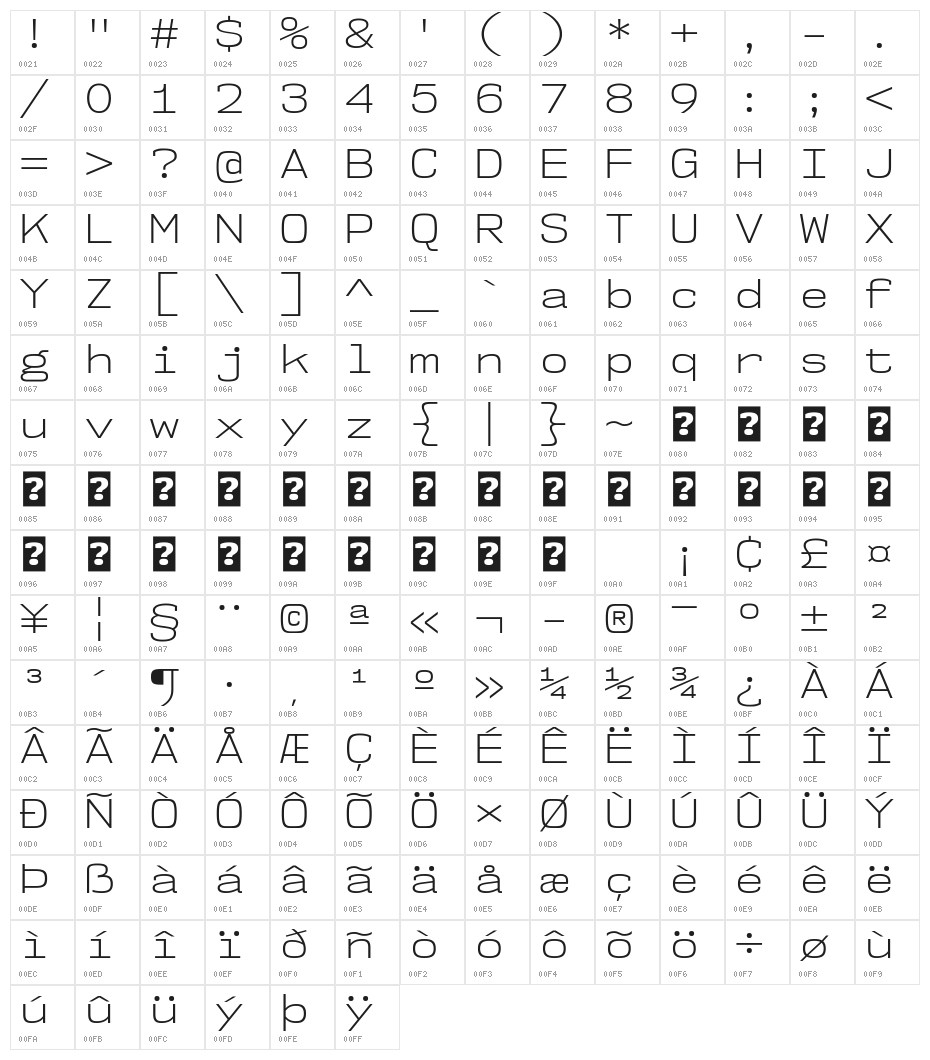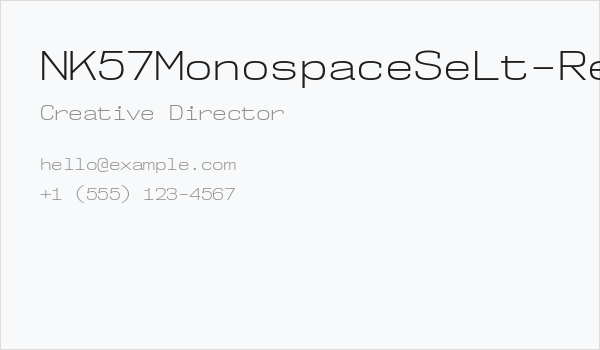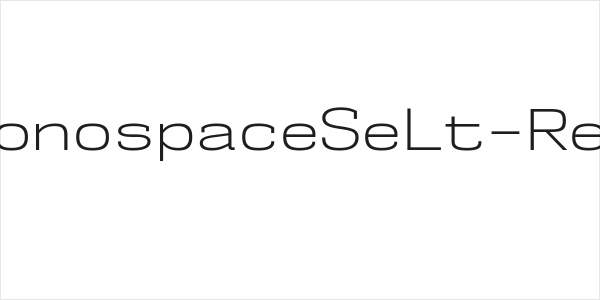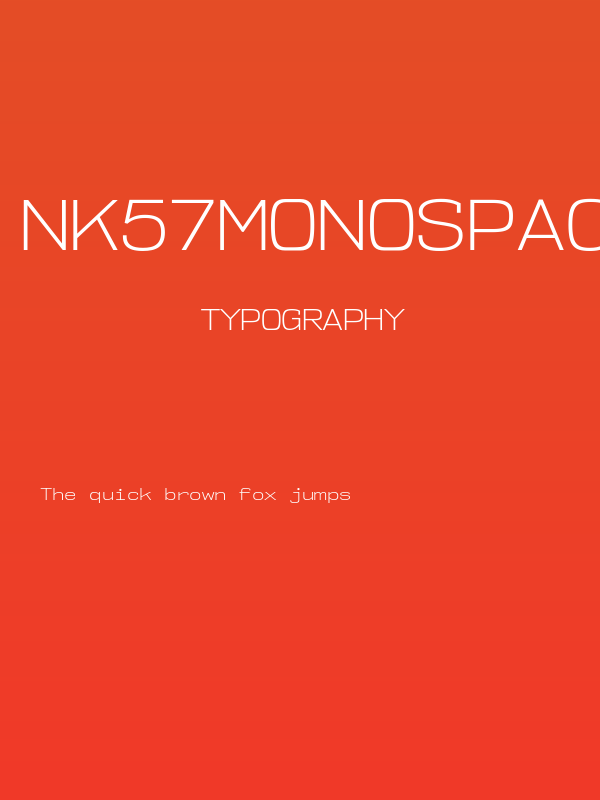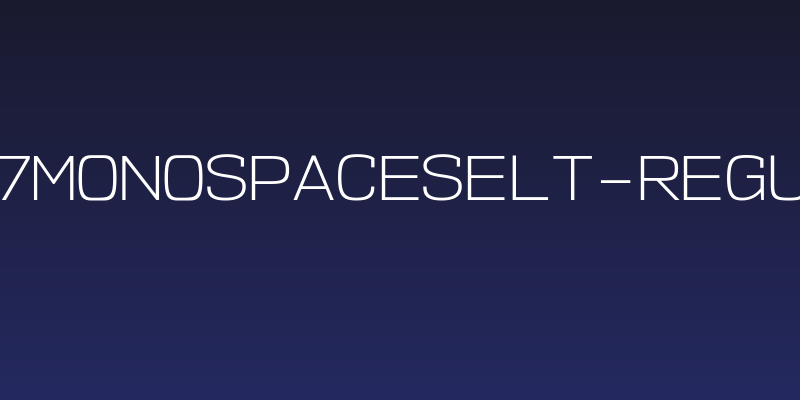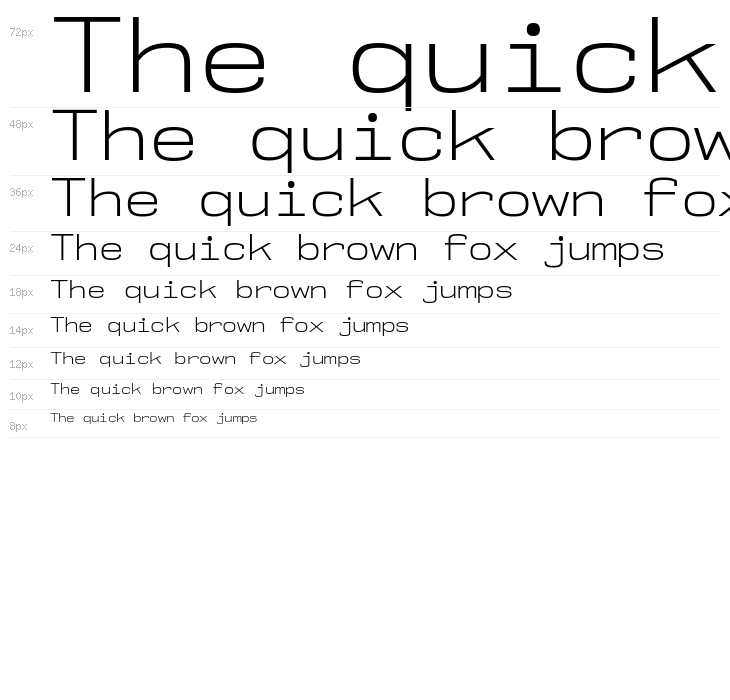
NK57MonospaceSeLt-Regular Font
NK57MonospaceSeLt-Regular Description
This font is a clean and precise monospaced typeface, characterized by its uniform character width and geometric shapes. It features a modern and minimalist design with straight lines and consistent stroke thickness, making it highly legible and suitable for coding and technical documentation. The uppercase letters are bold and structured, while the lowercase letters maintain a similar geometric style, ensuring readability. The numerals are distinct and clear, enhancing the font's utility in data-heavy contexts. Special characters are well-defined, adding to the font's versatility.
Use CaseCoding, Technical documentation, Data visualization
Proposed ProjectsIdeal for coding environments, technical documentation, and data visualization projects.